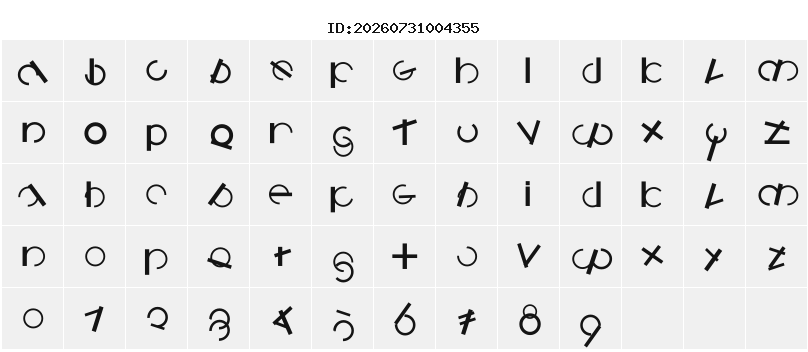
LogomatiqueBold Preview
About LogomatiqueBold.ttf
LogomatiqueBold.ttf is a modern, elegant sans-serif font designed for ultimate readability and visual harmony. Perfect for branding, headlines, web design, and print materials.